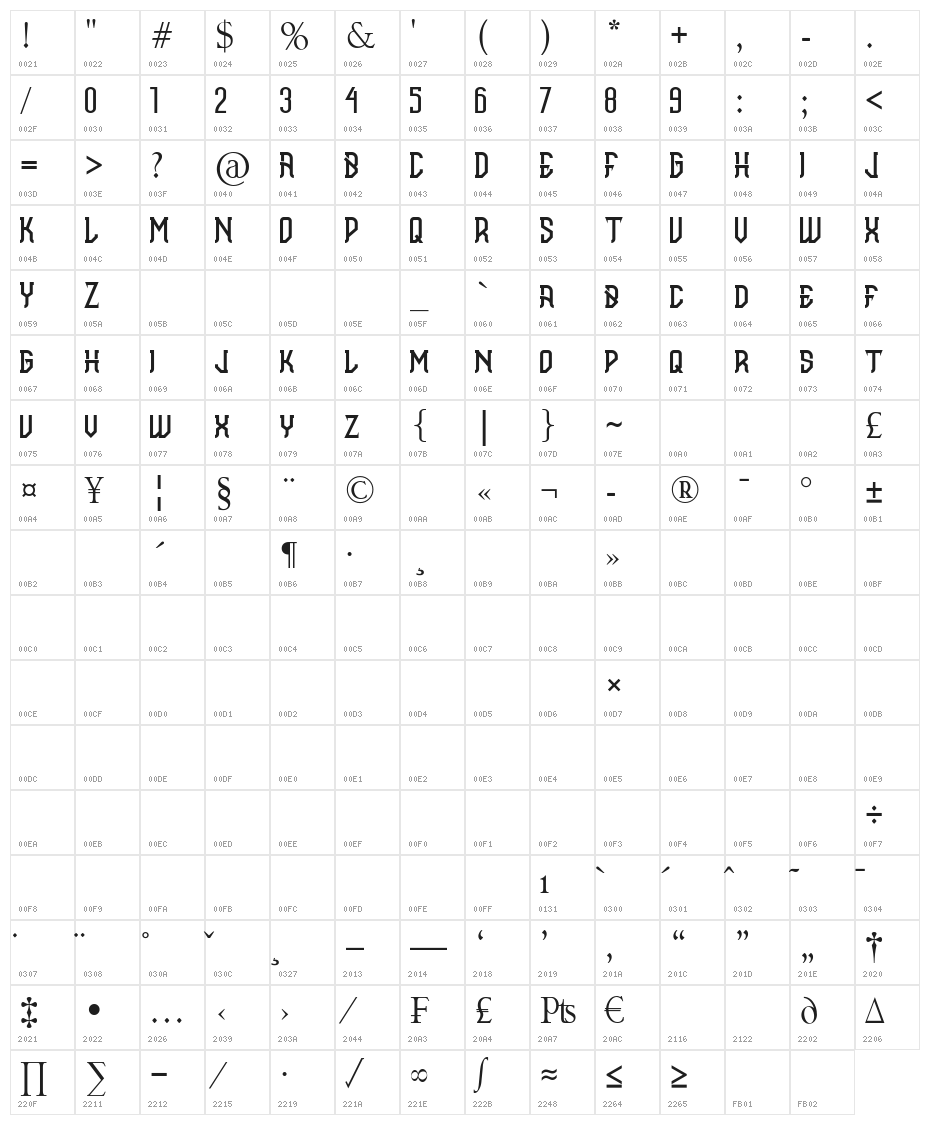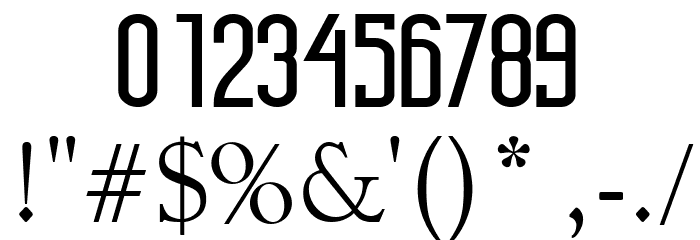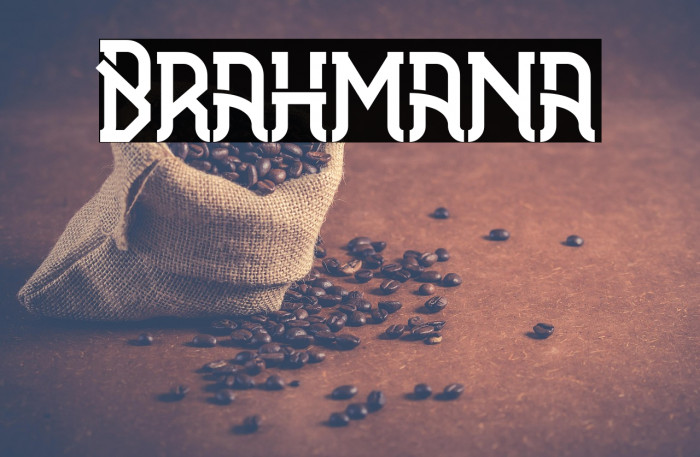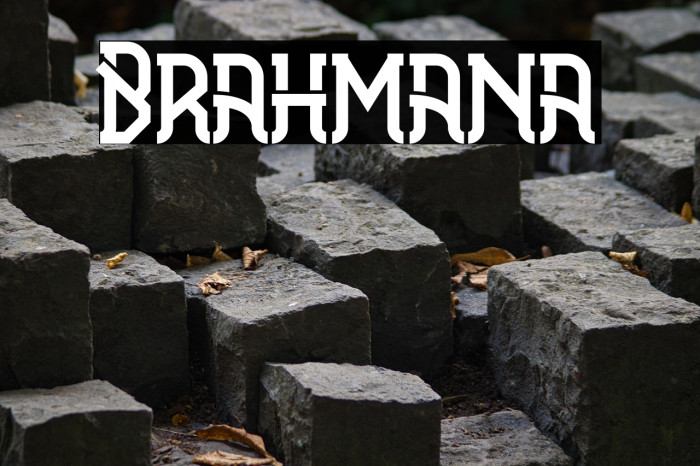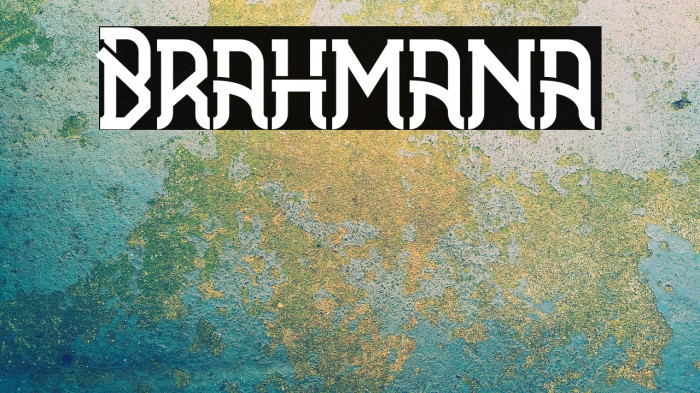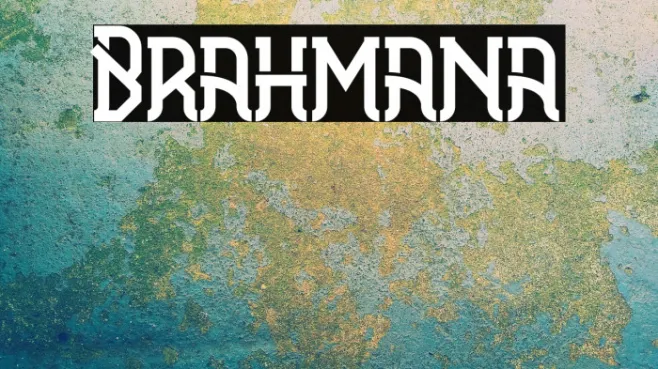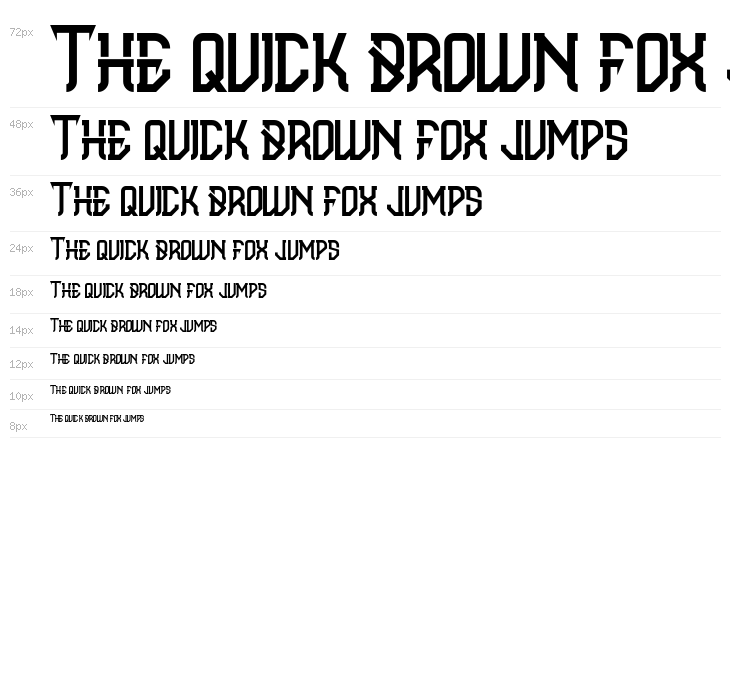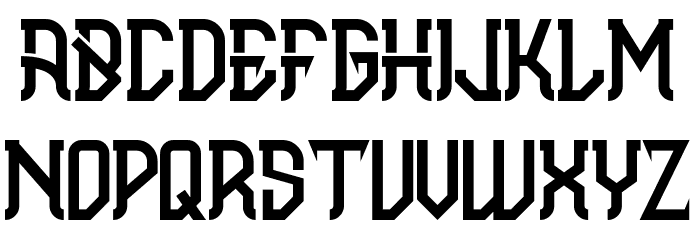
Brahmana Font
Brahmana Description
This font features a bold and geometric design with sharp angles and a distinct, modern aesthetic. The uppercase letters are particularly striking, with a unique blend of straight lines and angular cuts that create a sense of movement and energy. The lowercase letters maintain this geometric style, offering a cohesive look across the alphabet. Numbers and special characters are crafted with the same attention to detail, ensuring consistency throughout. The font's boldness and angularity make it ideal for projects that require a strong visual impact.